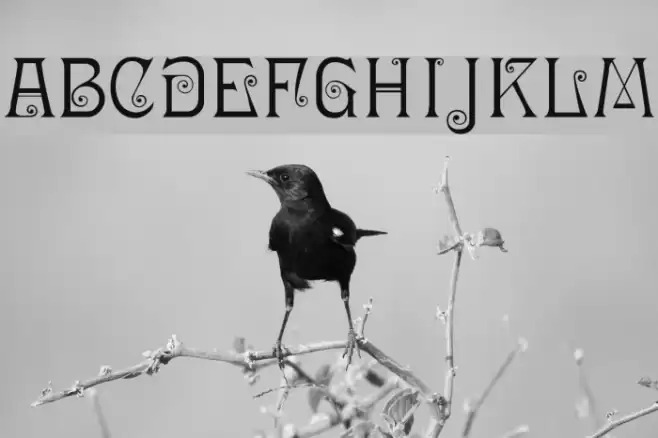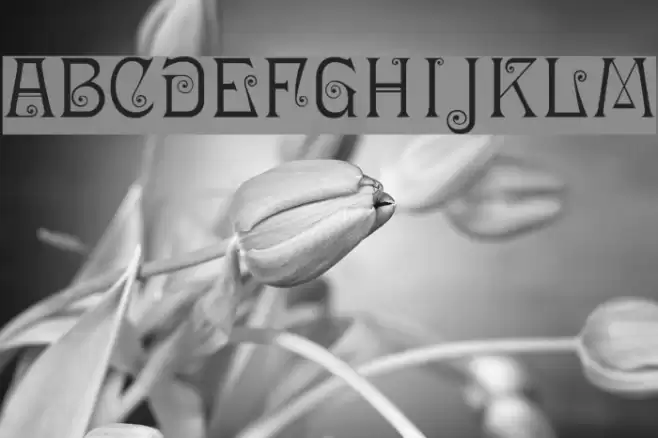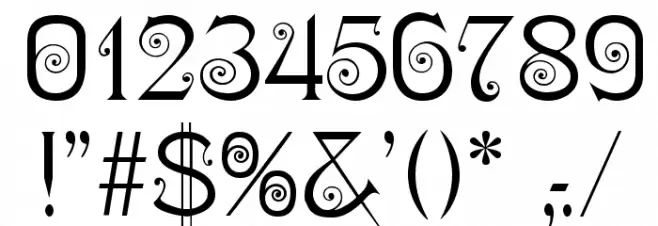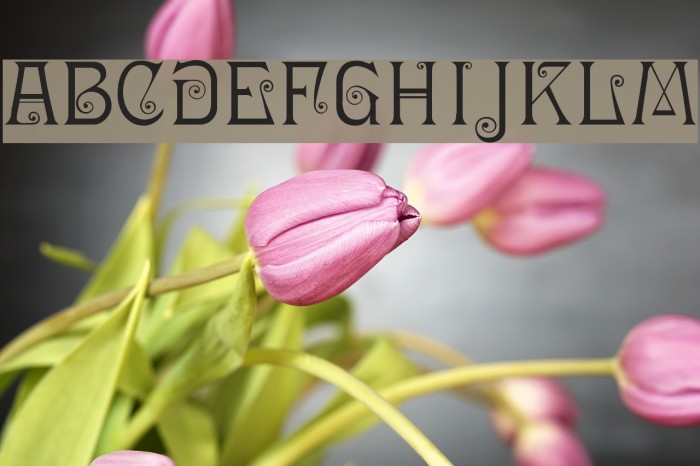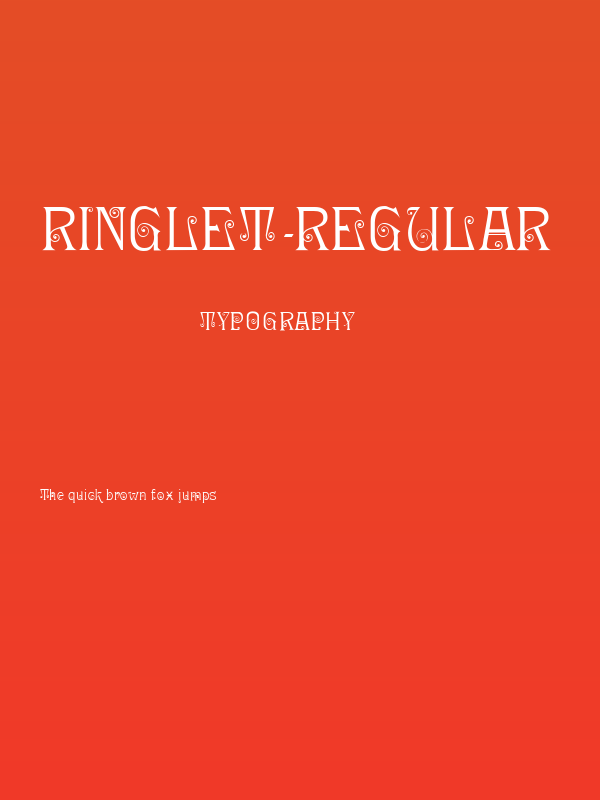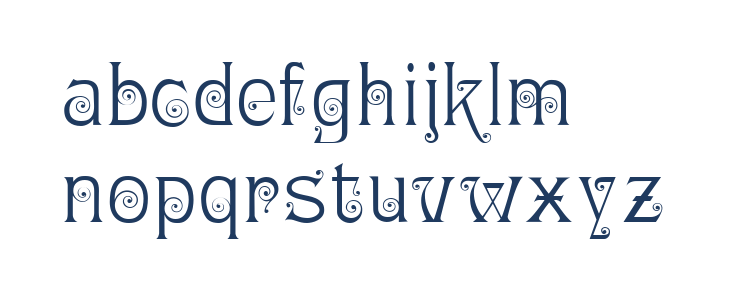
Ringlet-Regular Font
Ringlet-Regular Description
This font features a whimsical and decorative style, characterized by its unique spiral embellishments on each character. The uppercase letters are bold and striking, with an artistic flair that makes them stand out. The lowercase letters maintain the same playful design, ensuring consistency throughout the typeface. Numbers and special characters are equally adorned with the distinctive spiral motifs, adding a touch of creativity and fun. The overall appearance is both eye-catching and imaginative, making it suitable for projects that require a touch of elegance and creativity.
A whimsical, decorative font with spiral embellishments on each character from Retro fonts.